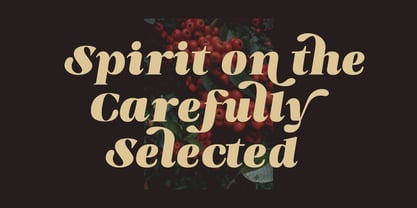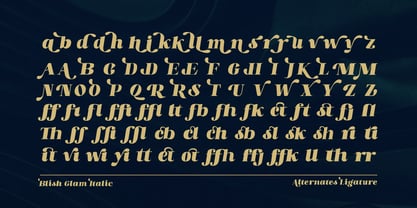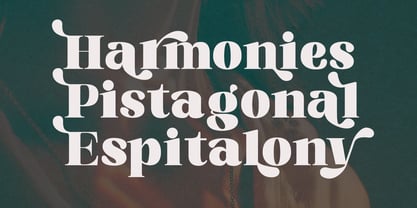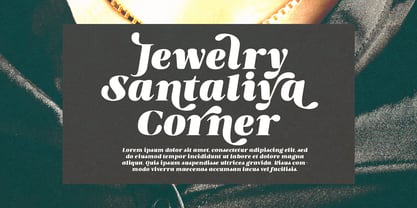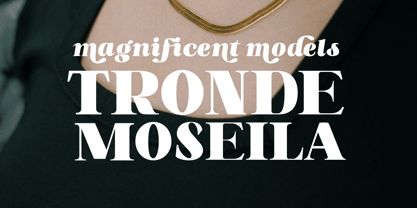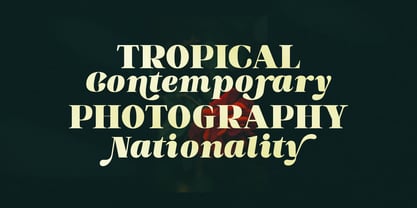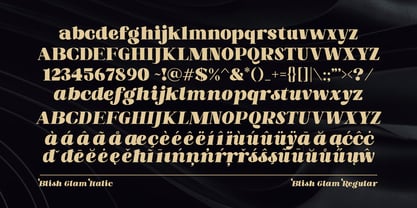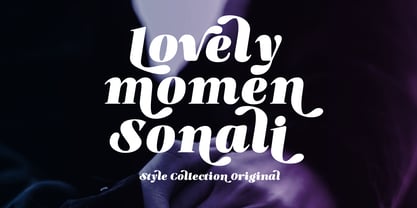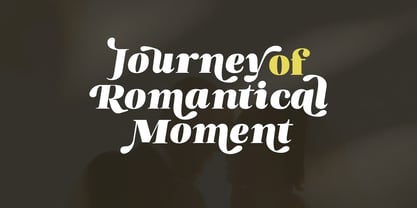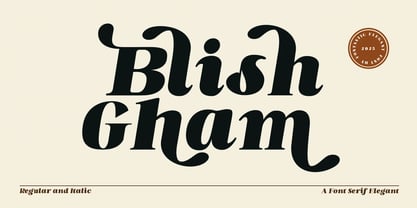
Blish Gham
von Fontastic Lab
Die Schriftfamilie Blish Gham wurde von Bebby Lutfitharina entworfen und von Fontastic Lab veröffentlicht. Blish Gham enthält 2 Stile und Familienpaketoptionen.
Blish Gham is a playful interpretation of a bold, straightforward serif, full of personality. It blends classic Gothic roots with a classy, simple touch that's both playful and dynamic. With playful curves and a simple structure, this typeface instantly adds a touch of elegance to your designs without losing its clarity or appeal. Perfect for branding, posters, packaging, and editorial work that needs a fresh touch.
Designer: Bebby Lutfitharina
Herausgeber: Fontastic Lab
Foundry: Fontastic Lab
Eigentümer des Designs: Fontastic Lab